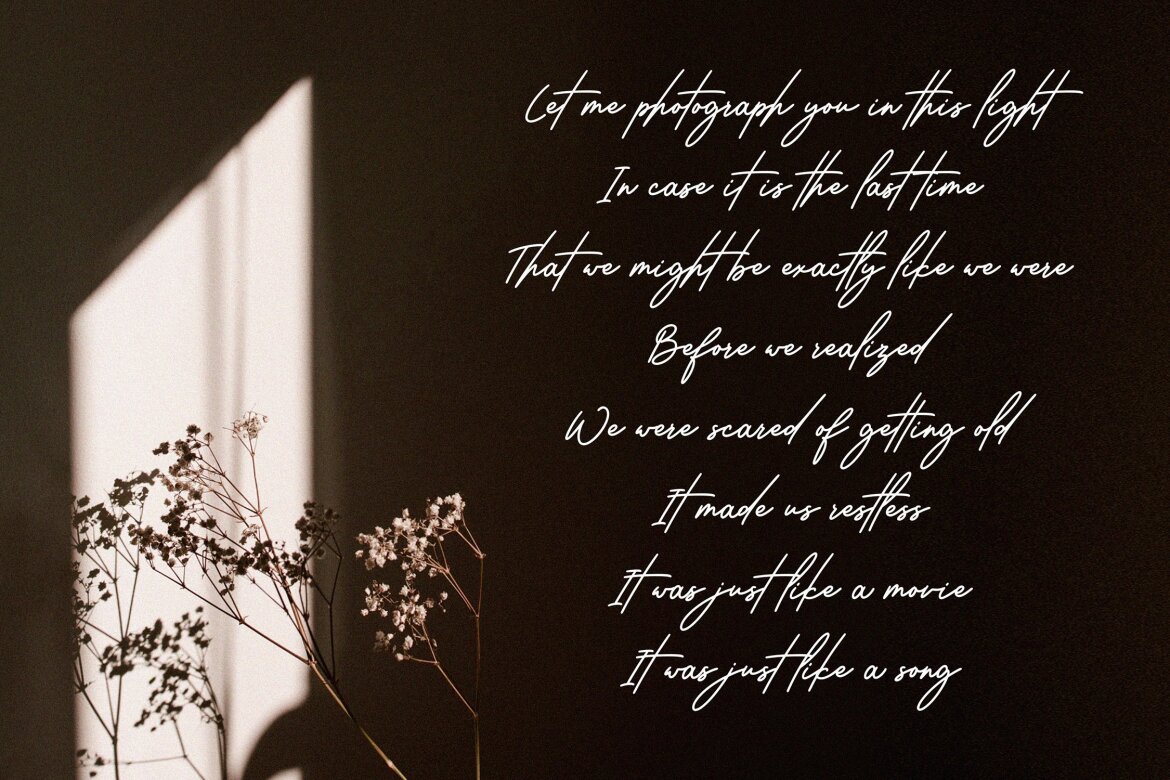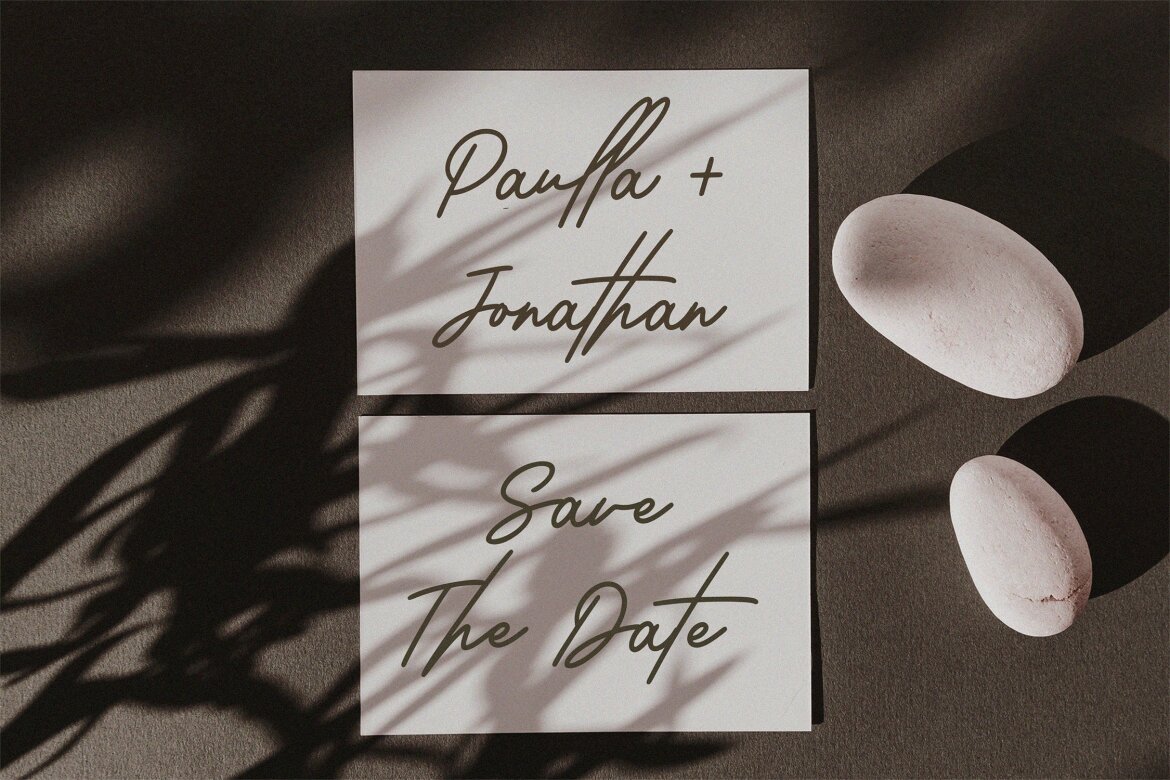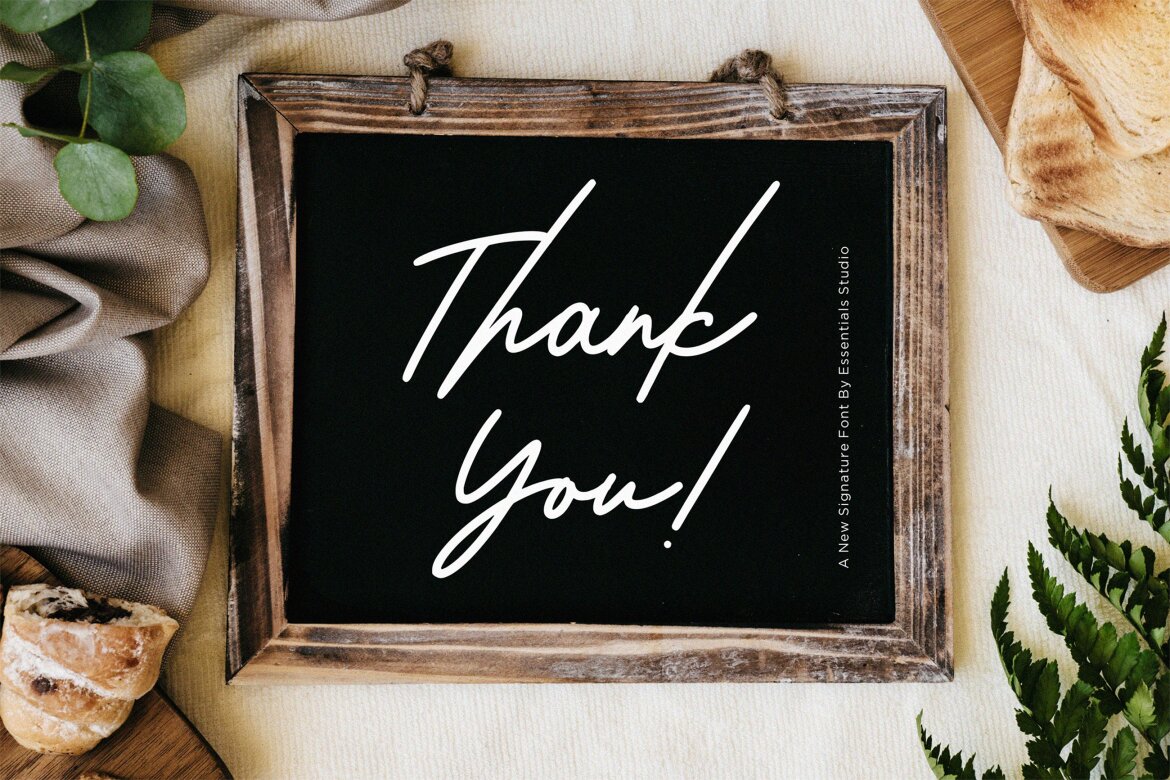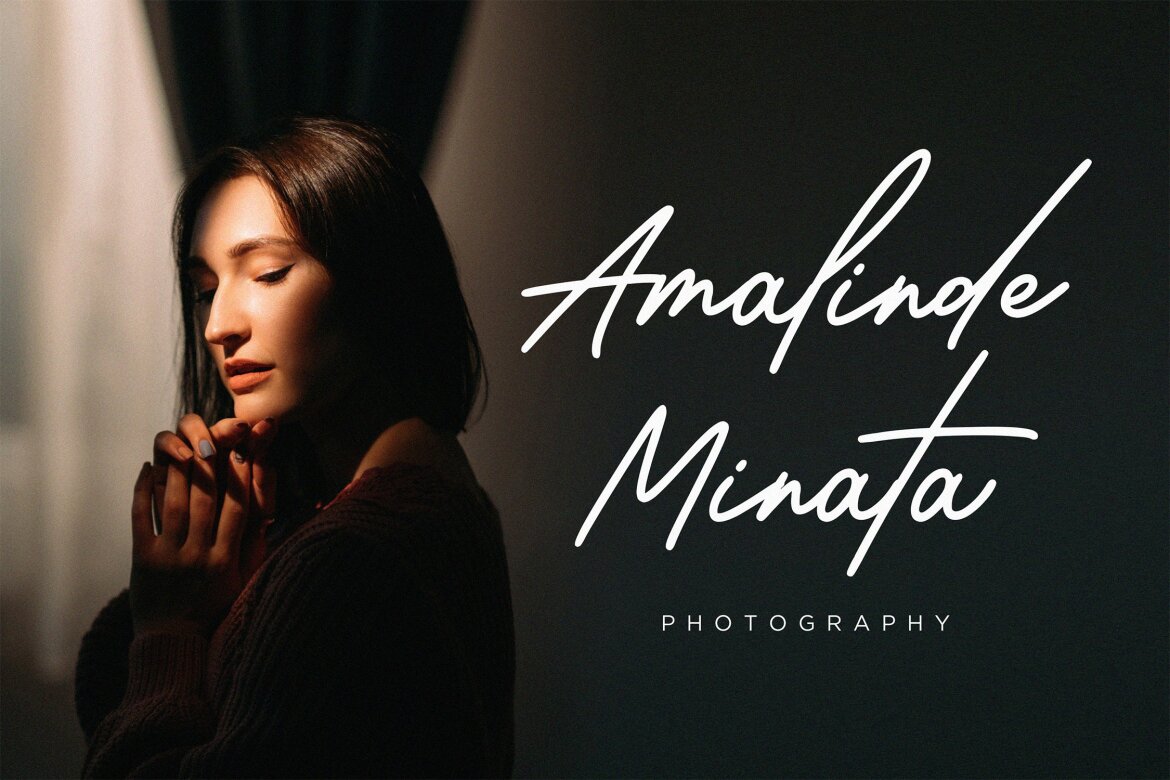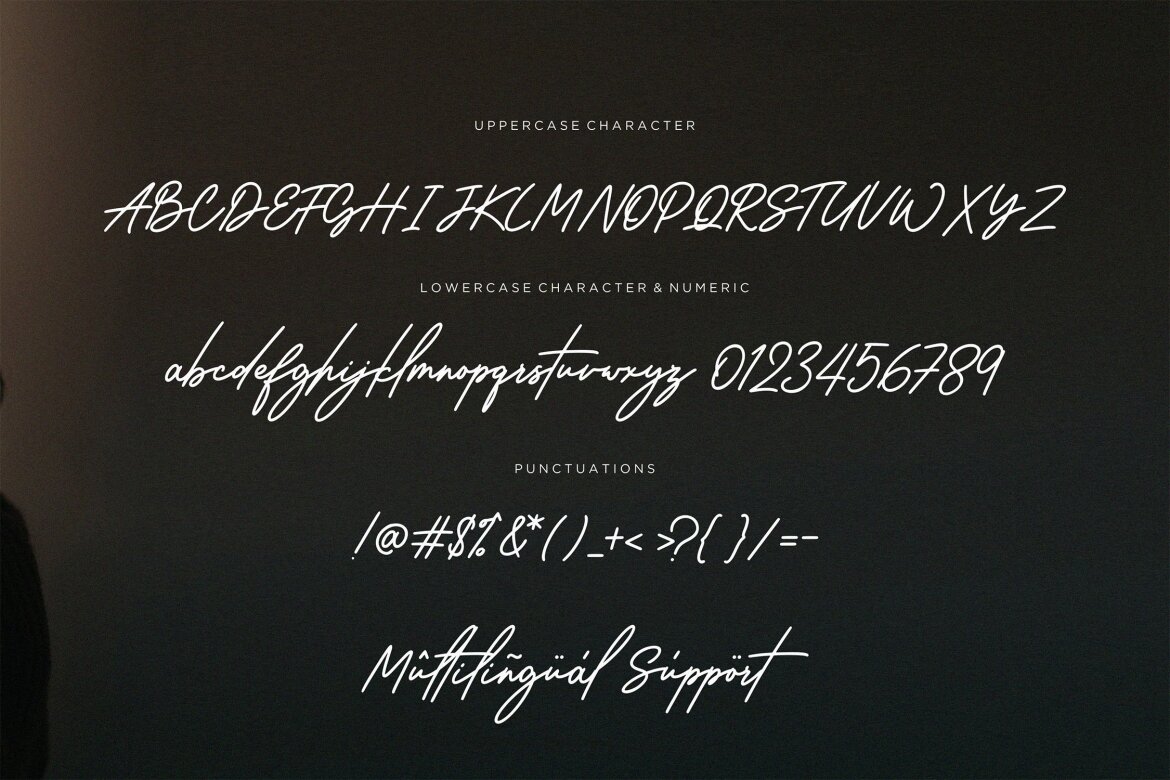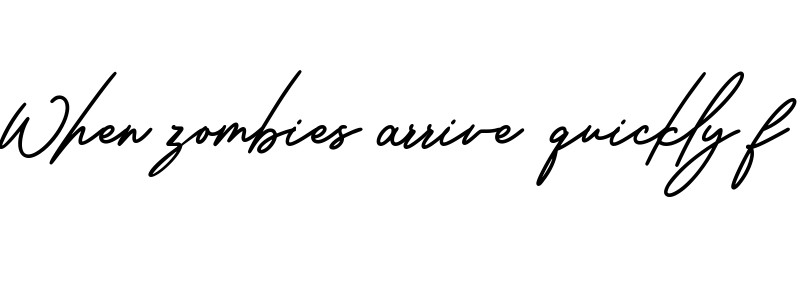
Wantsignature FREE Font
Wantsignature
Wantsignature is a stylish, luxurious signature font. It is perfect for product packaging, branding projects, magazines, social media, weddings, and more.